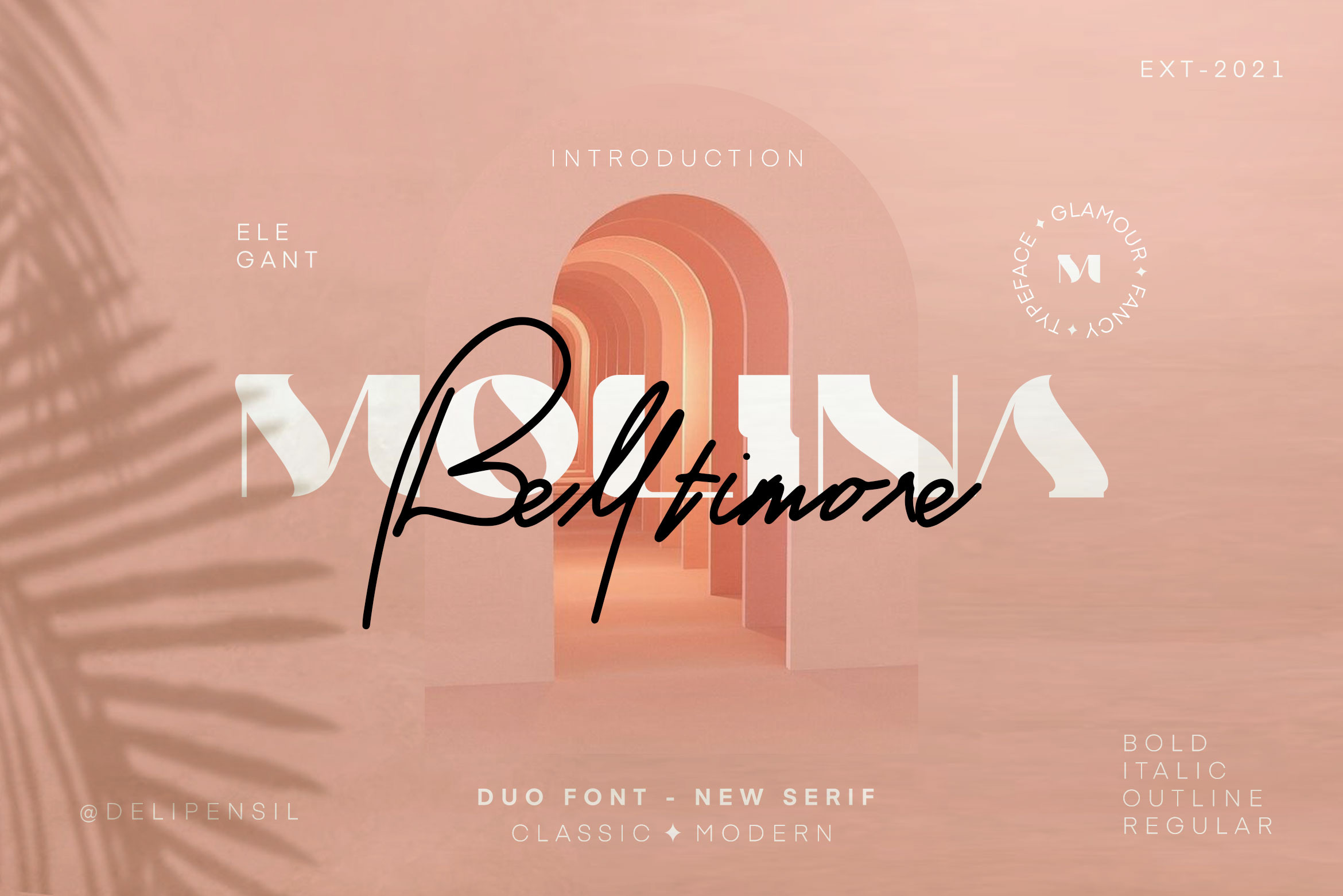
Molina - Duo Font Modern Serif
Bismillah, Introduction Molina - Duo Font A Beatiful Classic Modern Typeface 👑✨
Beauty Serif font, clean and mindful , it combine in both, use this font for anything beauty place for your logo, headline, cover book, magazine and many more